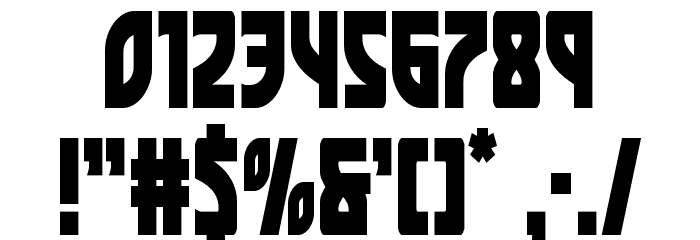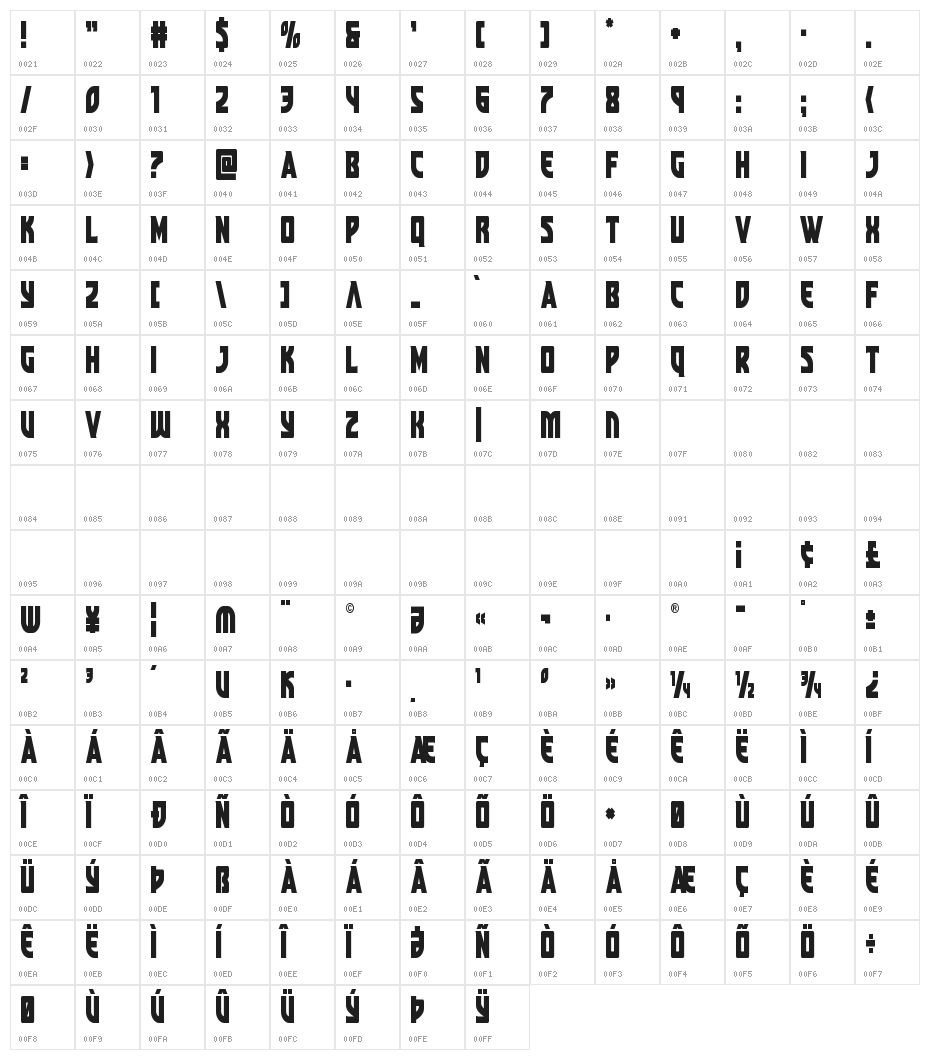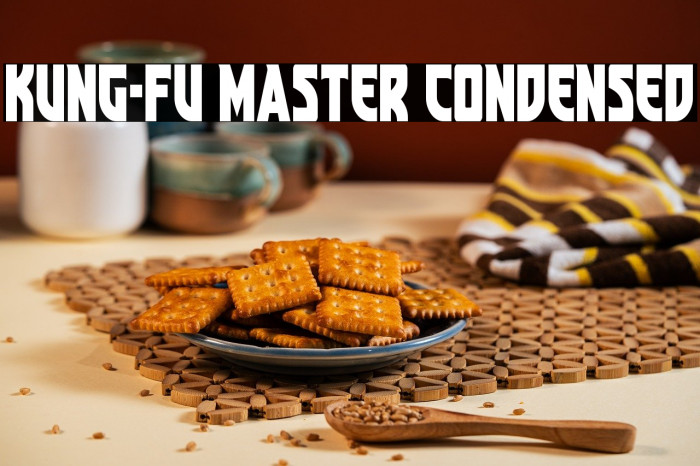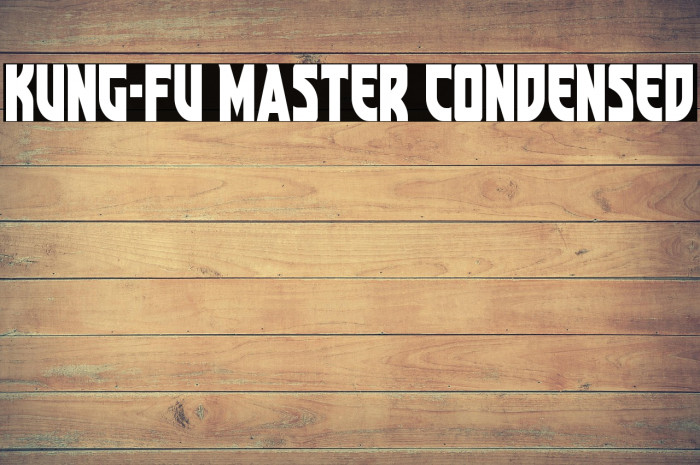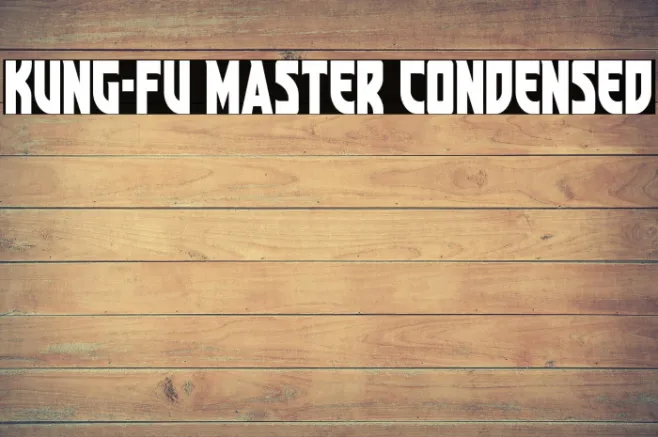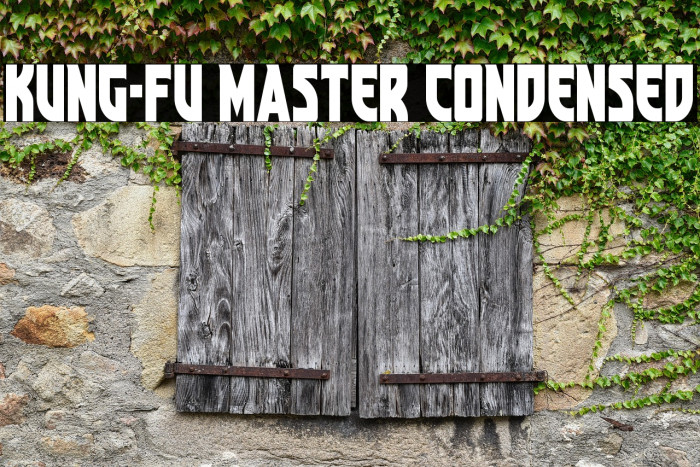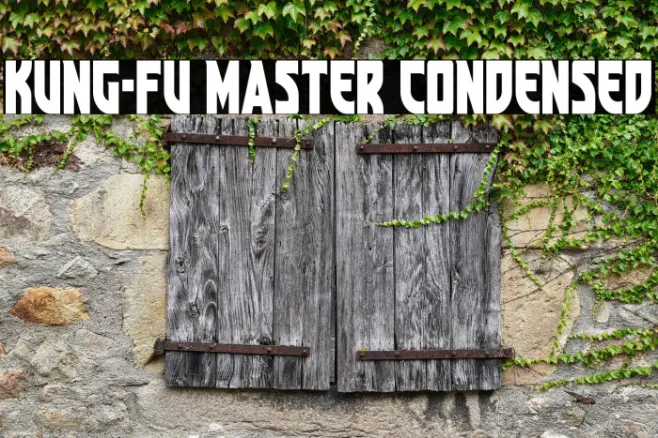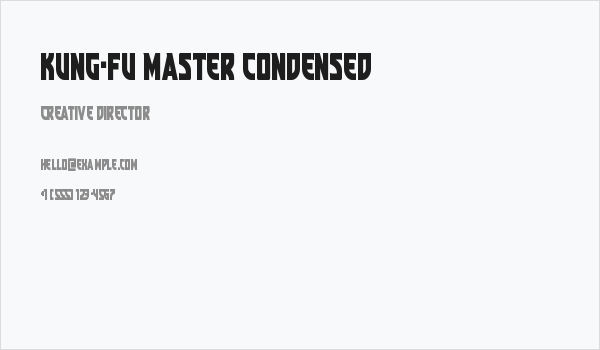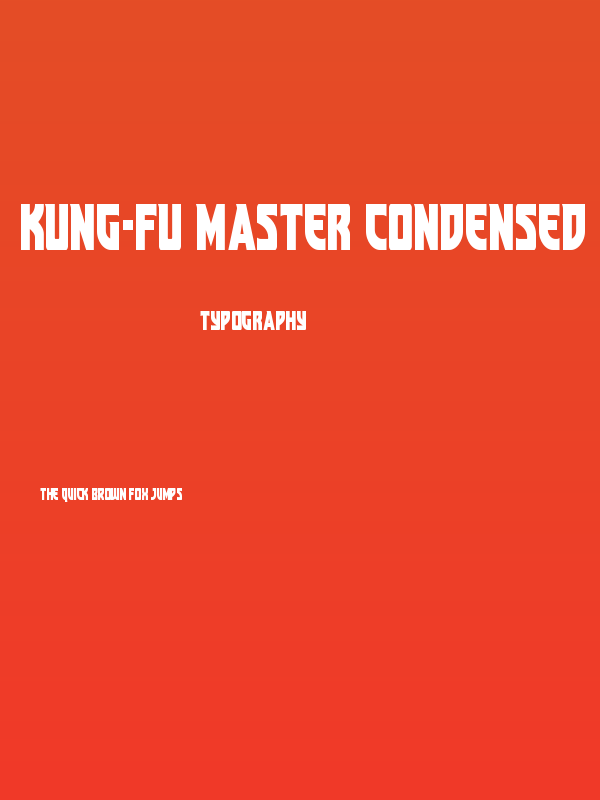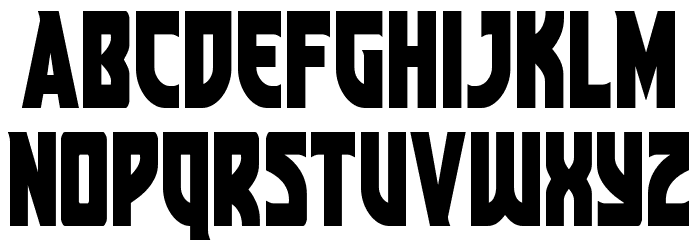
Kung-Fu Master Condensed Font
Kung-Fu Master Condensed Description
This font features a bold and striking design with a distinctly condensed style. The characters are blocky and geometric, with sharp angles and a strong presence. The uppercase letters are uniform in height, creating a cohesive and powerful look. The numbers and special characters follow the same bold and angular design, ensuring consistency across all elements. This font's condensed nature allows for efficient use of space while maintaining readability. The overall appearance is modern and assertive, making it suitable for impactful and attention-grabbing designs.